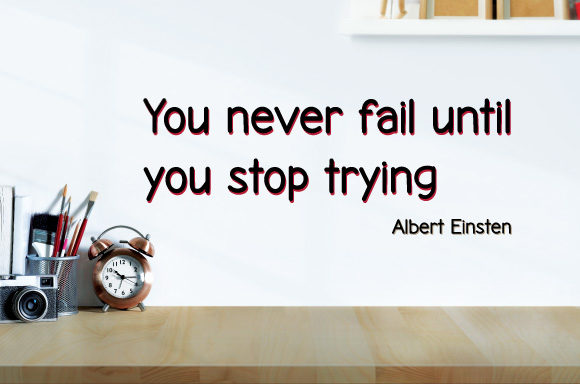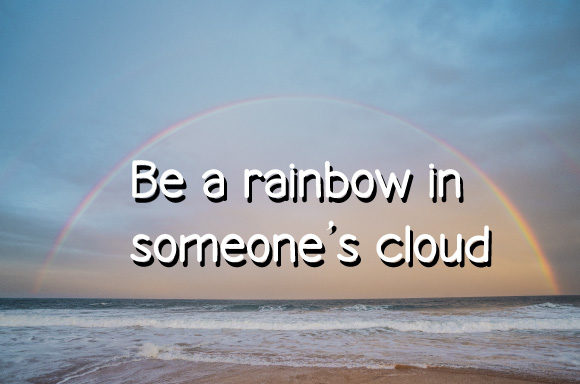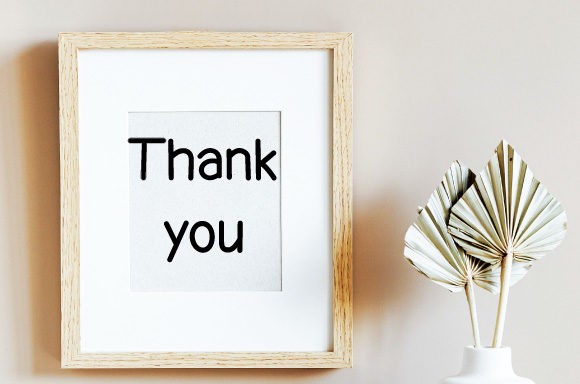
Alyve Font: The Simple and Clean Sans Serif for All Occasions
Are you tired of using the same old fonts in your designs? Look no further than Alyve Font, a simple and clean sans serif font that’s perfect for a wide variety of projects. Whether you’re a designer, crafter, or DIY enthusiast, Alyve Font has the potential to become your new go-to font.
What is Alyve Font?
Alyve Font is a sans serif font that’s characterized by its clean lines, simple shapes, and lack of embellishments. This font is perfect for designers who want to create modern, minimalist designs that are easy to read and visually appealing. The font is highly versatile and can be used for a variety of projects, from logos and branding to signage, packaging, and digital media.
Key Features of Alyve Font
So, what makes Alyve Font so special? Here are some of its key features:
- Simple and Clean Design: Alyve Font has a simple and clean design that’s easy on the eyes. The font is free from unnecessary embellishments, making it perfect for designers who want to create modern and minimalist designs.
- Highly Versatile: Alyve Font is highly versatile and can be used for a wide variety of projects, from logos and branding to signage, packaging, and digital media.
- Easy to Read: The font is highly legible, even at small sizes, making it perfect for body text and other applications where readability is key.
- Supports Multiple Languages: Alyve Font supports multiple languages, making it a great choice for designers who work with international clients or want to create designs that can be used globally.
Why Choose Alyve Font?
So, why should you choose Alyve Font for your next design project? Here are some reasons:
- Unique and Modern Design: Alyve Font has a unique and modern design that’s sure to make your designs stand out from the crowd.
- Easy to Pair with Other Fonts: The font is easy to pair with other fonts, making it perfect for designers who want to create complex and visually appealing designs.
- Great for Digital Media: Alyve Font is optimized for digital media, making it perfect for designers who create digital content, such as social media graphics, blog posts, and website designs.
How to Use Alyve Font in Your Designs
Using Alyve Font in your designs is easy. Here are some tips:
- Use it as a Headline Font: Alyve Font is perfect for headlines and titles. Use it to create bold and eye-catching headlines that grab attention.
- Use it for Body Text: The font is also great for body text. Use it to create easy-to-read paragraphs and other text elements.
- Pair it with Other Fonts: Alyve Font pairs well with other fonts. Experiment with different font combinations to create visually appealing designs.
- Experiment with Different Sizes and Colors: Don’t be afraid to experiment with different sizes and colors. Alyve Font looks great in a variety of sizes and colors.
Alyve Font is a simple and clean sans serif font that’s perfect for a wide variety of design projects. Its modern and minimalist design makes it easy to read and visually appealing. With its versatility, ease of use, and affordability, Alyve Font has the potential to become your new go-to font. So, why not give it a try?
Here are some additional tips for designers and crafters who want to get the most out of Alyve Font:
- Experiment with Different Design Elements: Don’t be afraid to experiment with different design elements, such as shapes, colors, and textures.
- Keep it Simple: Alyve Font is a simple font, so keep your designs simple and clean.
- Use it for Branding: Alyve Font is perfect for branding and logo design. Use it to create a consistent brand identity.